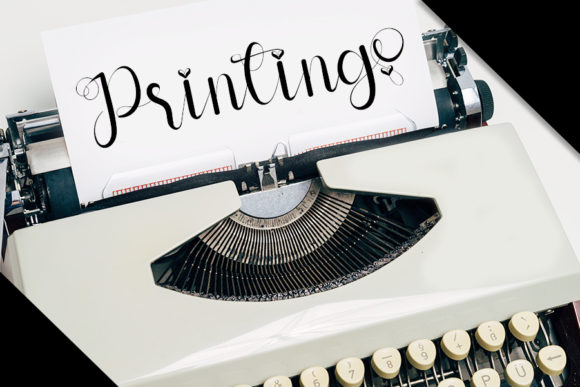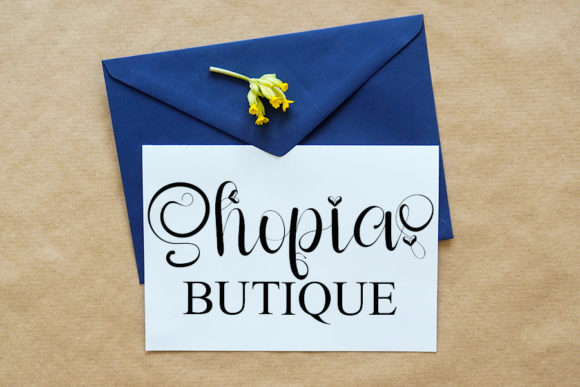
Happy Holidays Font
db-ku.com - Script & Handwritten -- Happy Holidays is a stylish and delicate calligraphy font. It has a clean, thin and smooth vibe and it will be a hit for any design that you want to add it to. This font is PUA encoded which means you can access all of the glyphs and swashes with ease!